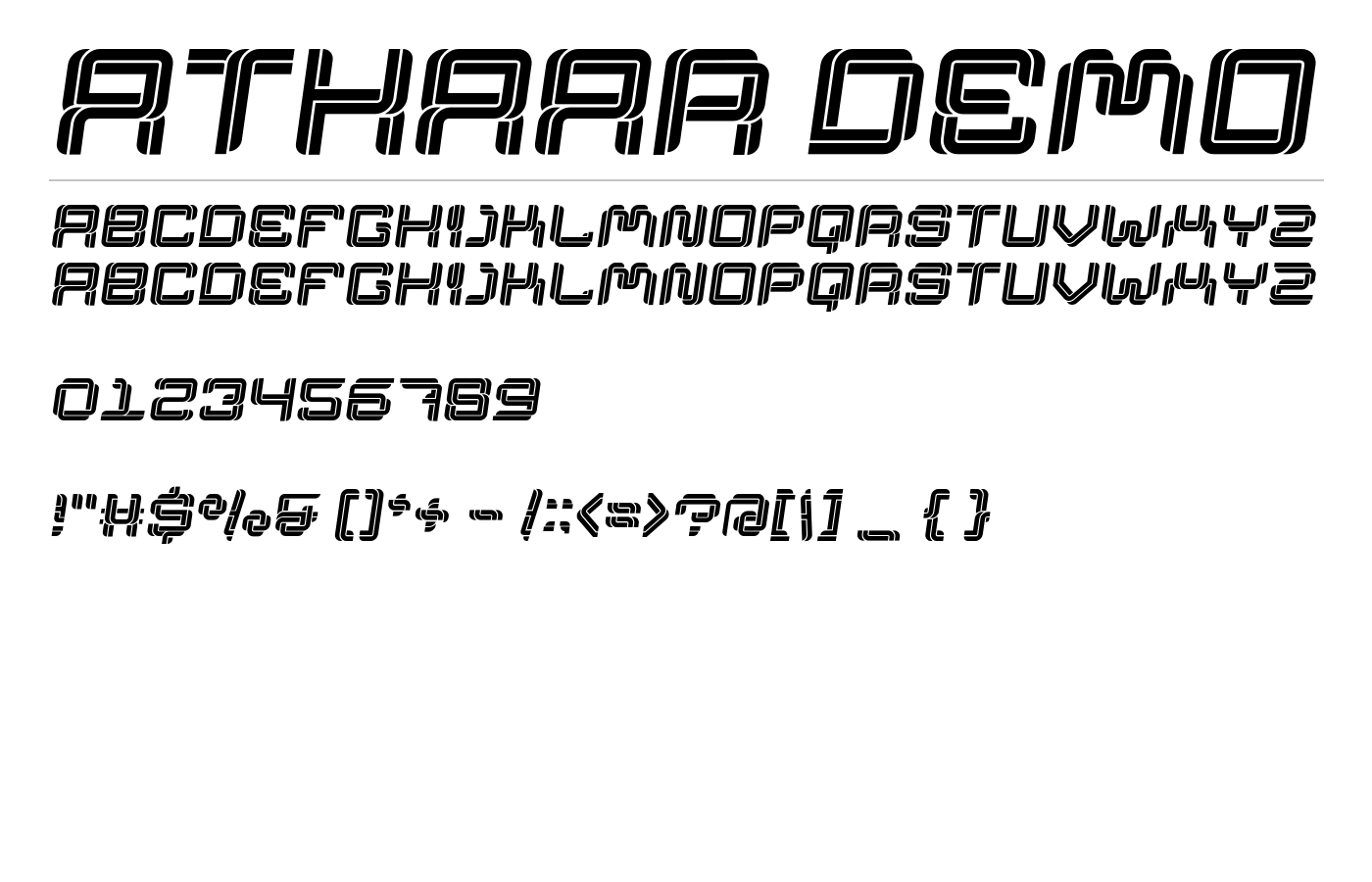
Athaar Demo is a futuristic sans serif font with a sleek and angular design, featuring medium weight and tight spacing that give it a compact and modern appearance. Its distinct double-line strokes and geometric letterforms create a dynamic, tech-inspired style perfect for commanding attention in headlines, logos, and digital branding. This font’s bold personality makes it well suited for projects aiming to convey innovation, energy, and a cutting-edge vibe.
Athaar Demo Font
About Athaar Demo Font